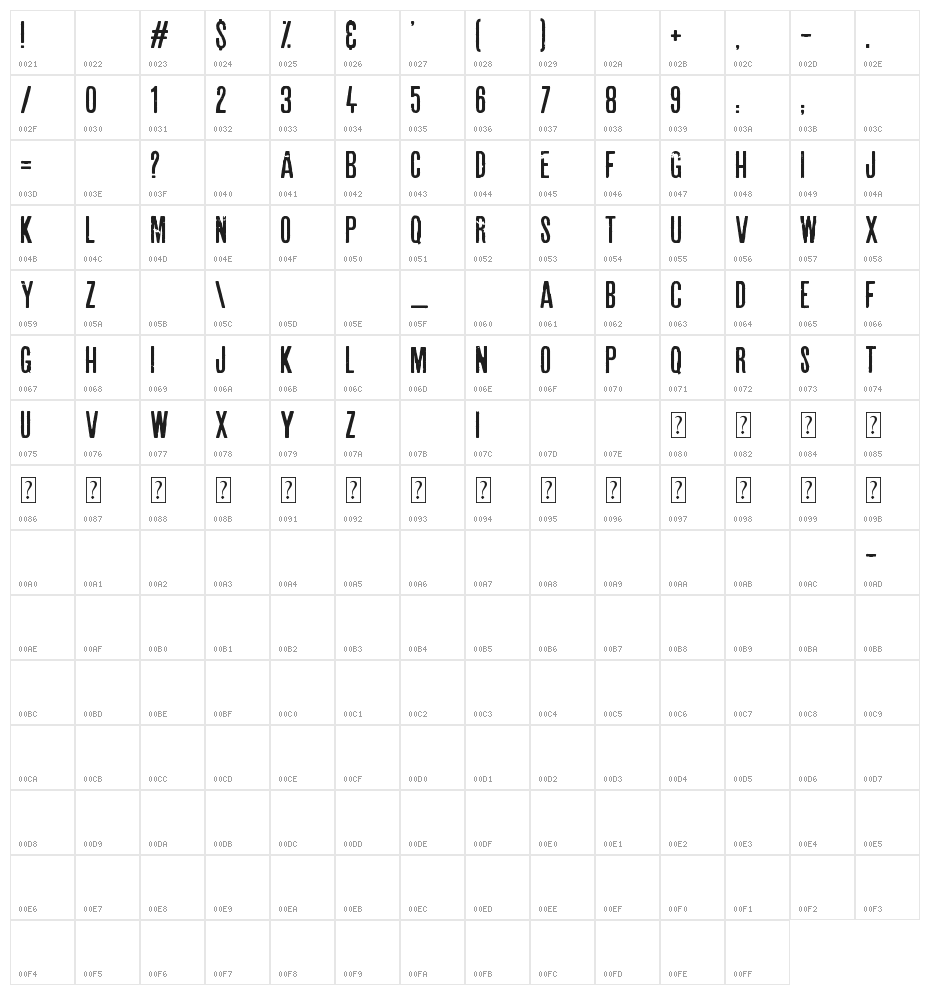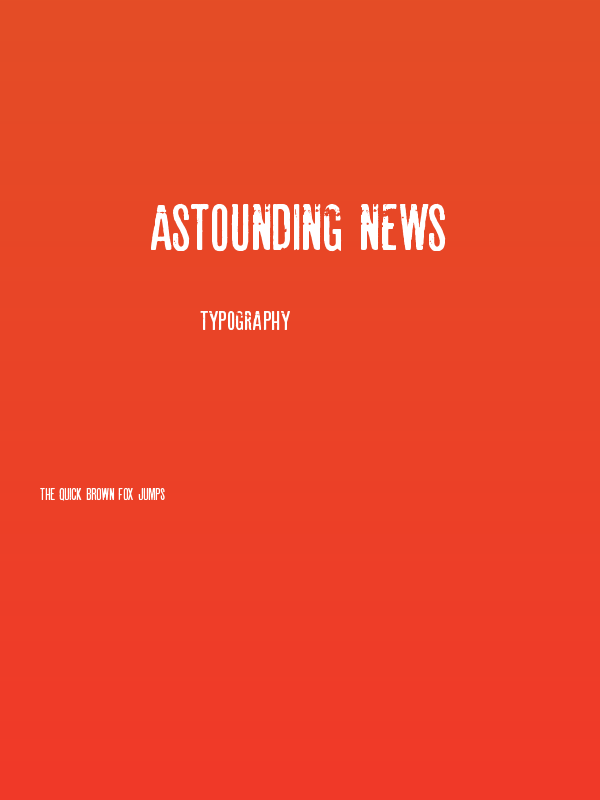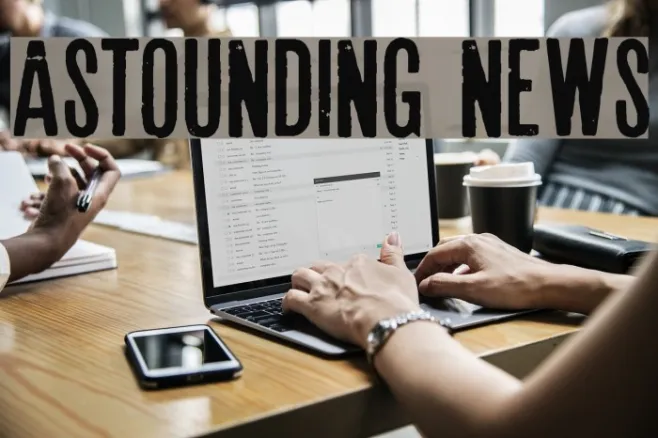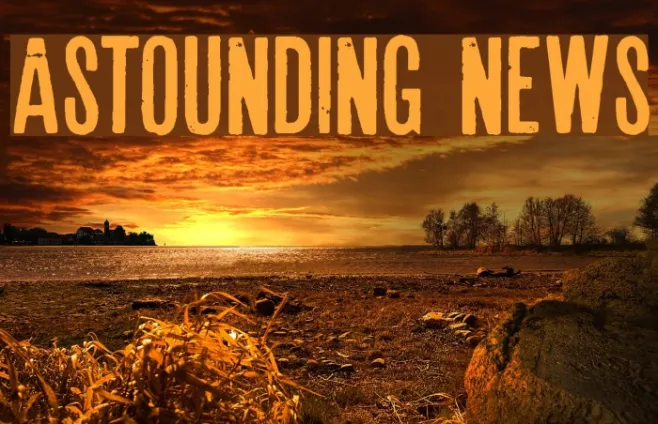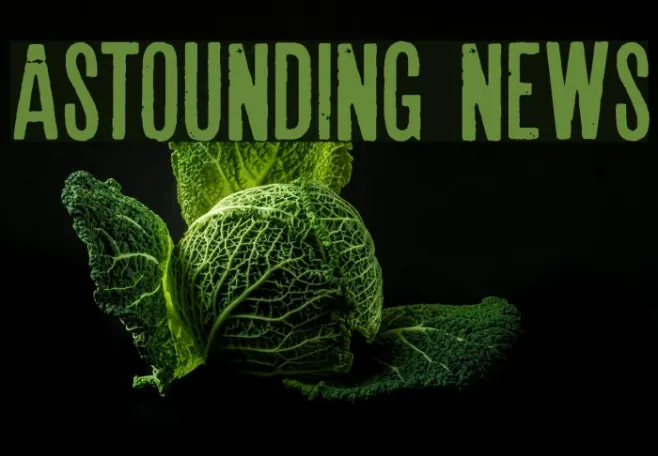
Astounding news Font
Astounding news Description
This font features a bold, distressed style with a vintage, industrial feel. The uppercase letters are tall and narrow, with a slightly rough texture that gives them a worn, weathered appearance. The numbers and special characters maintain this rugged aesthetic, making the font ideal for projects that require a strong, impactful look. The characters are evenly spaced, ensuring readability while maintaining the font's distinctive style. The overall design is reminiscent of old newspaper headlines or vintage posters, adding a touch of nostalgia to any design.
| Proposed Projects | Ideal for vintage posters, headlines, branding, and any project needing a strong, nostalgic impact. |